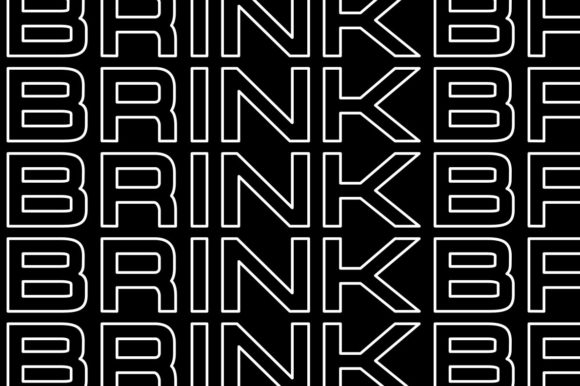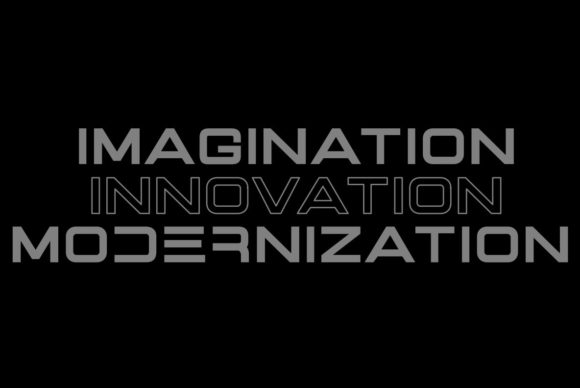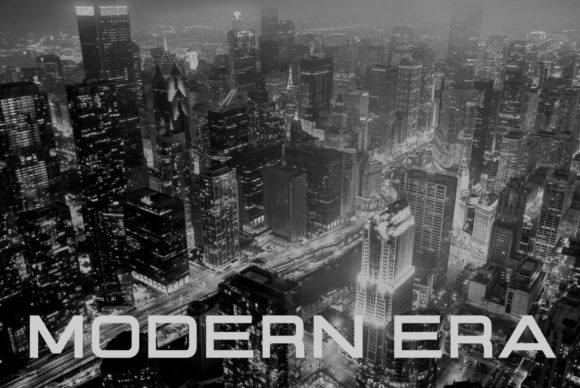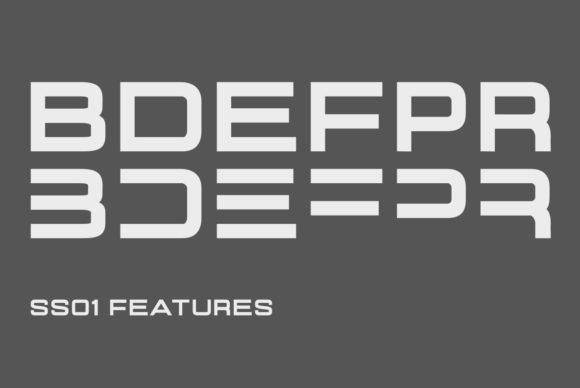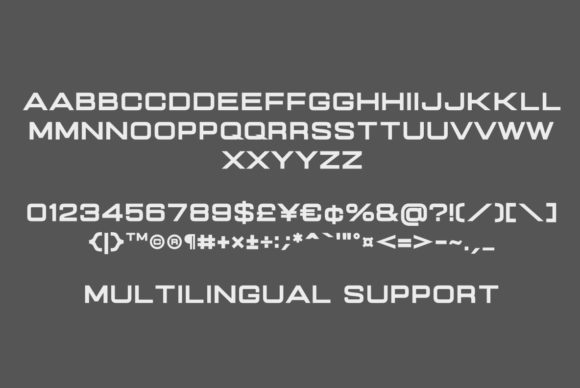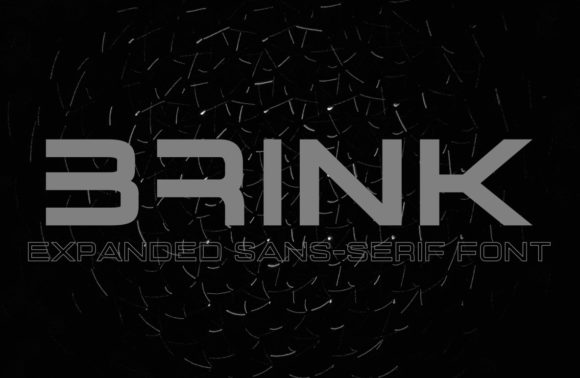
Introducing Brink Font: The Bold and Assertive Display Font for Creative Designs
In the world of typography, a good font can make all the difference in creating a lasting impression. For designers and crafters looking for a unique touch, Brink Font is an excellent choice. This bold and assertive display font is ideal for writing web designs, business cards, or pretty much anything else that requires a statement piece.
What is Brink Font?
Brink Font is a carefully crafted display font that exudes confidence and style. Its bold and assertive design makes it perfect for headlines, titles, and any other text that needs to stand out. The font’s unique character and edgy feel make it an excellent choice for designers looking to add a touch of personality to their work.
Key Features of Brink Font
- Bold and Assertive Design: Brink Font is designed to make a statement. Its bold and assertive design ensures that your text stands out from the crowd.
- Unique Character: The font’s unique character and edgy feel make it perfect for designers looking to add a touch of personality to their work.
- High-Quality Design: Brink Font is carefully crafted with attention to detail, ensuring a high-quality design that looks great on any device.
- Versatile: The font is versatile and can be used for a wide range of design projects, from web designs to business cards, posters, and more.
Why Choose Brink Font?
With so many fonts available, why choose Brink Font? Here are a few reasons why designers and crafters love this font:
- Easy to Read: Despite its bold design, Brink Font is easy to read, making it perfect for headlines and titles.
- Customizable: The font is highly customizable, allowing designers to adjust the size, color, and style to fit their needs.
- Time-Saving: With Brink Font, designers can save time and effort, as the font is ready to use and requires minimal editing.
- Unique Look: The font’s unique look and feel ensure that designs stand out from the crowd and grab attention.
How to Use Brink Font
Using Brink Font is easy. Here are a few tips to get you started:
- Pair with Other Fonts: Pair Brink Font with other fonts to create a unique and interesting design.
- Use for Headlines: Use Brink Font for headlines and titles to add a bold and assertive touch.
- Experiment with Colors: Experiment with different colors to find the perfect combination that works with your design.
- Adjust Font Size: Adjust the font size to fit your design needs, from large headlines to smaller text.
Brink Font in Design Projects
Brink Font can be used in a wide range of design projects, including:
- Web Designs: Use Brink Font to create bold and assertive headlines and titles for web designs.
- Business Cards: Add a unique touch to business cards with Brink Font.
- Posters and Flyers: Use Brink Font to create eye-catching posters and flyers.
- Social Media Graphics: Use Brink Font to create bold and assertive social media graphics.
| Font Name | Brink Font |
| Author | Arief Rochman |
In conclusion, Brink Font is an excellent choice for designers and crafters looking for a bold and assertive display font. Its unique character, high-quality design, and versatility make it perfect for a wide range of design projects. With Brink Font, designers can add a unique touch to their work and create lasting impressions.